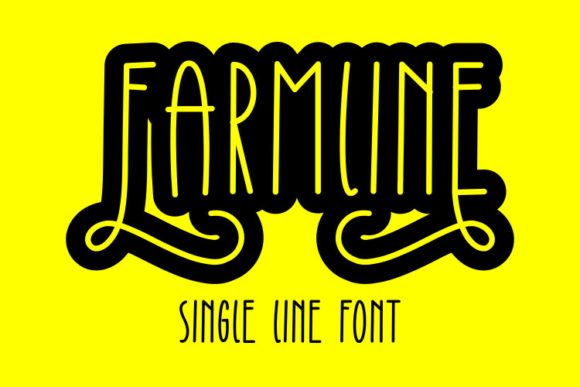
Introducing Farmline Font: The Fun and Simple Display Font for Your Creative Projects
Are you a designer, crafter, or DIY enthusiast looking for a font that can add a touch of personality to your projects? Look no further than Farmline Font! This fun and simple display font is perfect for a wide range of applications, from branding and product packaging to invitations, quotes, t-shirts, labels, posters, and logos.
What Makes Farmline Font So Special?
Farmline Font is a unique and versatile font that can match any style or theme you wish to create. Its simple yet playful design makes it perfect for projects that require a friendly and approachable tone. Whether you’re creating a logo for a new business, designing a label for a craft product, or making a poster for a special event, Farmline Font is sure to make your project stand out.
Key Features of Farmline Font
- Fun and Simple Design: Farmline Font has a playful and carefree design that’s perfect for projects that require a lighthearted tone.
- Highly Versatile: This font can be used for a wide range of applications, from branding and product packaging to invitations, quotes, t-shirts, labels, posters, and logos.
- Easy to Read: Despite its playful design, Farmline Font is easy to read and understand, making it perfect for projects that require clear communication.
- Scalable: Farmline Font is designed to be scalable, so you can use it for projects of all sizes, from small labels to large posters.
How to Use Farmline Font in Your Projects
Farmline Font is easy to use and can be incorporated into your projects in a variety of ways. Here are a few ideas to get you started:
- Branding and Product Packaging: Use Farmline Font to create a logo or label for your business or product. Its playful design is sure to make your brand stand out.
- Invitations and Quotes: Add a personal touch to your invitations and quotes with Farmline Font. Its simple yet elegant design makes it perfect for special occasions.
- T-Shirts and Apparel: Use Farmline Font to create custom t-shirts and apparel for your business or event. Its fun design is sure to appeal to a wide range of audiences.
- Posters and Flyers: Create eye-catching posters and flyers with Farmline Font. Its scalable design makes it perfect for large-format printing.
Why Designers and Crafters Love Farmline Font
Designers and crafters love Farmline Font for its versatility and ease of use. Here are a few reasons why:
- Easy to Pair with Other Fonts: Farmline Font pairs well with a wide range of fonts, making it easy to incorporate into your existing design style.
- Customizable: Farmline Font can be customized to fit your specific needs. You can adjust the size, color, and style to match your project’s requirements.
- Time-Saving: With Farmline Font, you can save time and effort in your design process. Its simple design makes it easy to use and eliminates the need for extensive design work.
Farmline Font is a fun and simple display font that’s perfect for designers, crafters, and DIY enthusiasts. Its versatile design makes it suitable for a wide range of applications, from branding and product packaging to invitations, quotes, t-shirts, labels, posters, and logos. With its ease of use, customizability, and scalability, Farmline Font is sure to become a staple in your design toolkit.